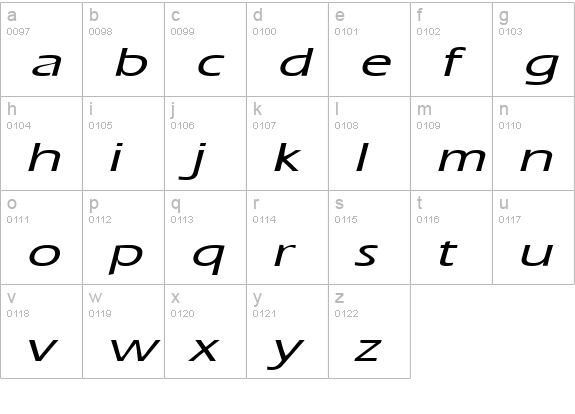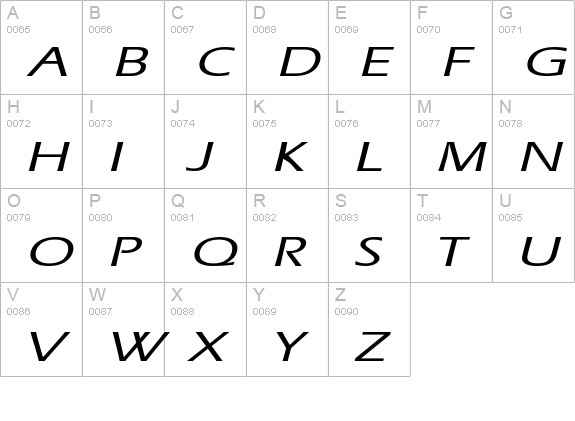
Eric Extended Italic is a distinctive, extended-width, italic variant in the Eric typeface family \xE2\x80\x94 well suited to design and typography projects.
Introducing Eric Extended Italic font - a modern and stylish typeface that exudes sophistication and elegance. With its sleek and elongated letterforms, Eric Extended Italic is perfect for adding a touch of class to any design project. This versatile font is ideal for a wide range of applications, from branding to editorial design. And the best part? Eric Extended Italic is available for free download at FontsMarket.com! Don't miss out on the opportunity to enhance your projects with this premium font without spending a dime. Download Eric Extended Italic today and elevate your designs with its timeless appeal.